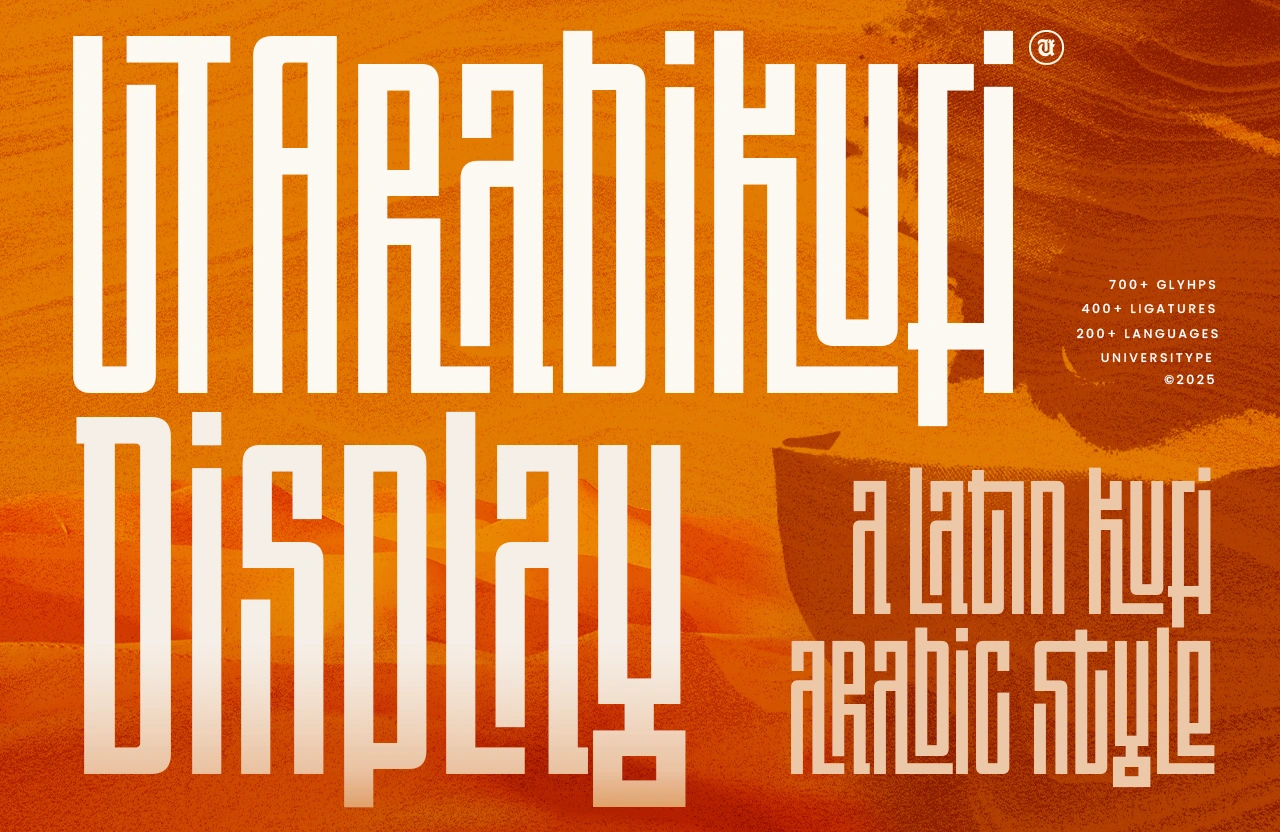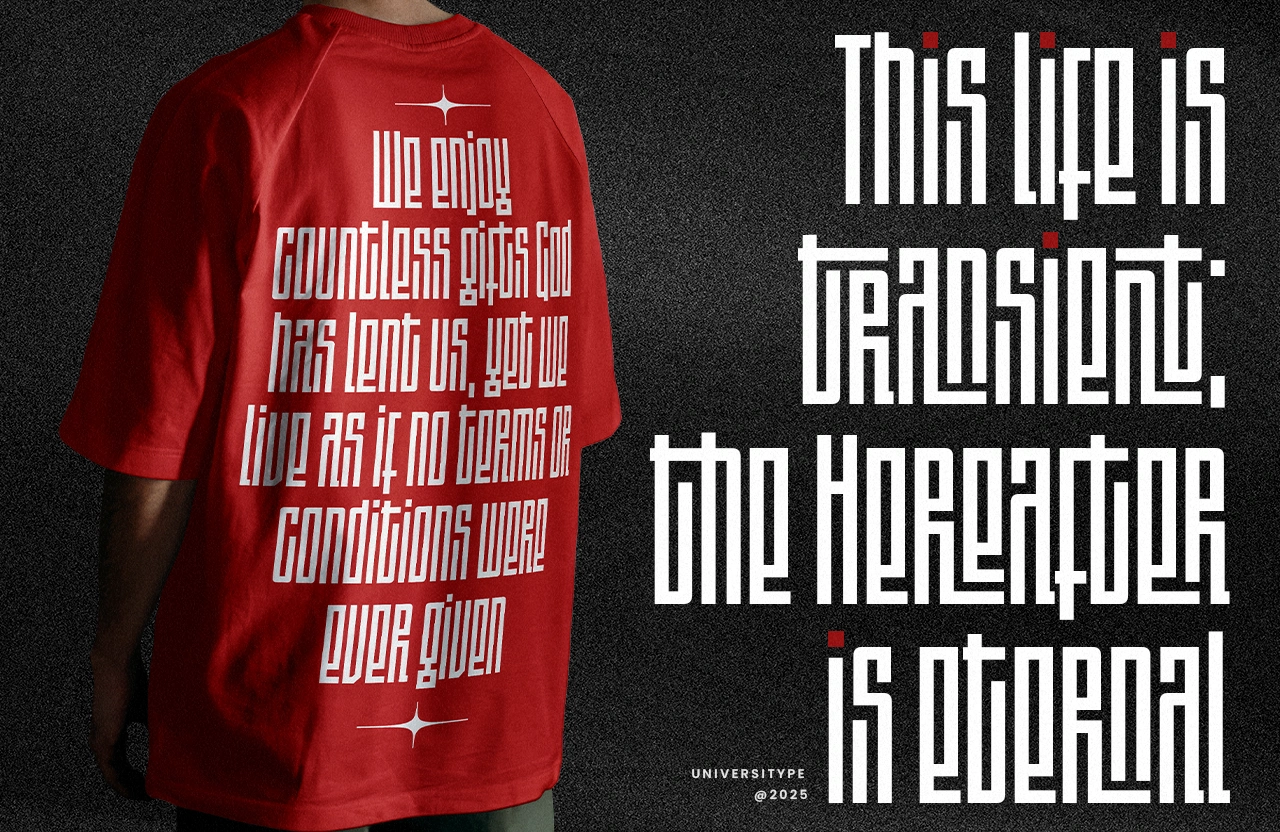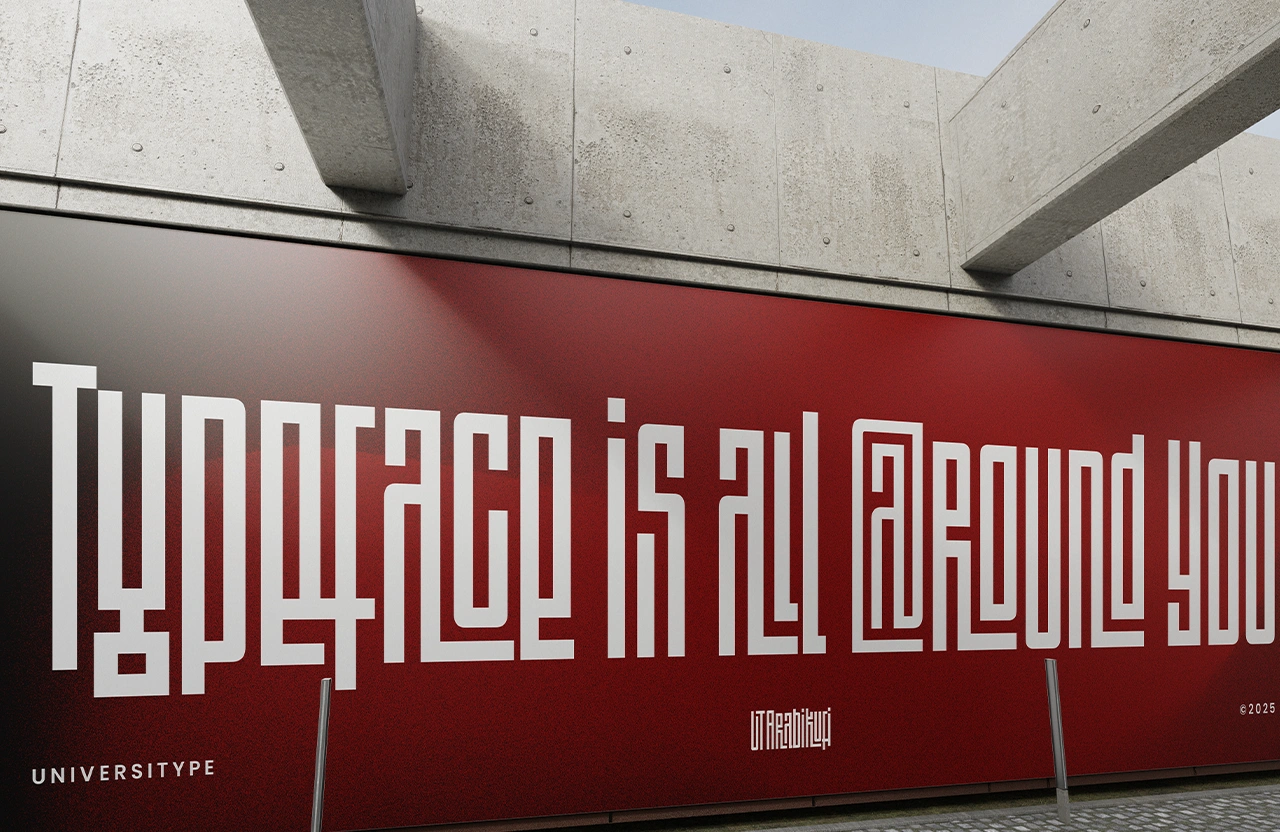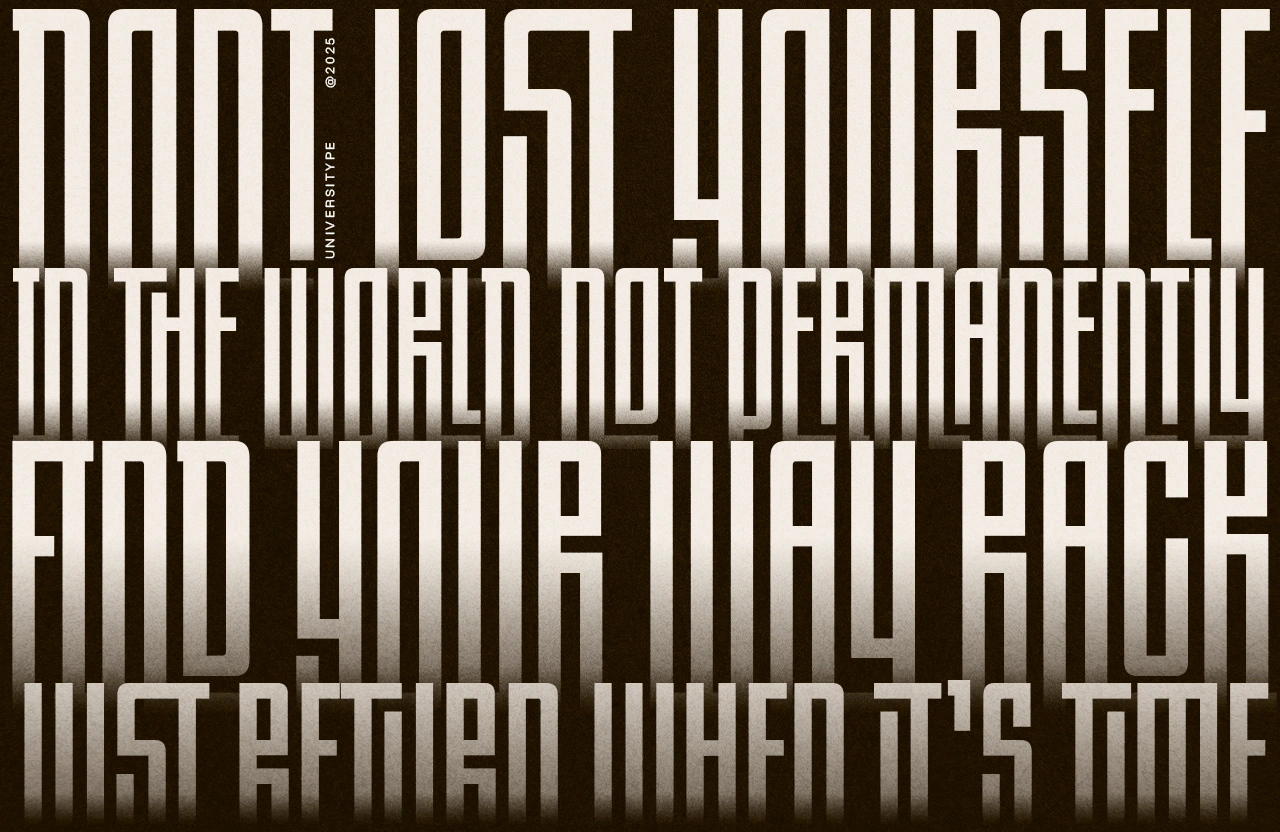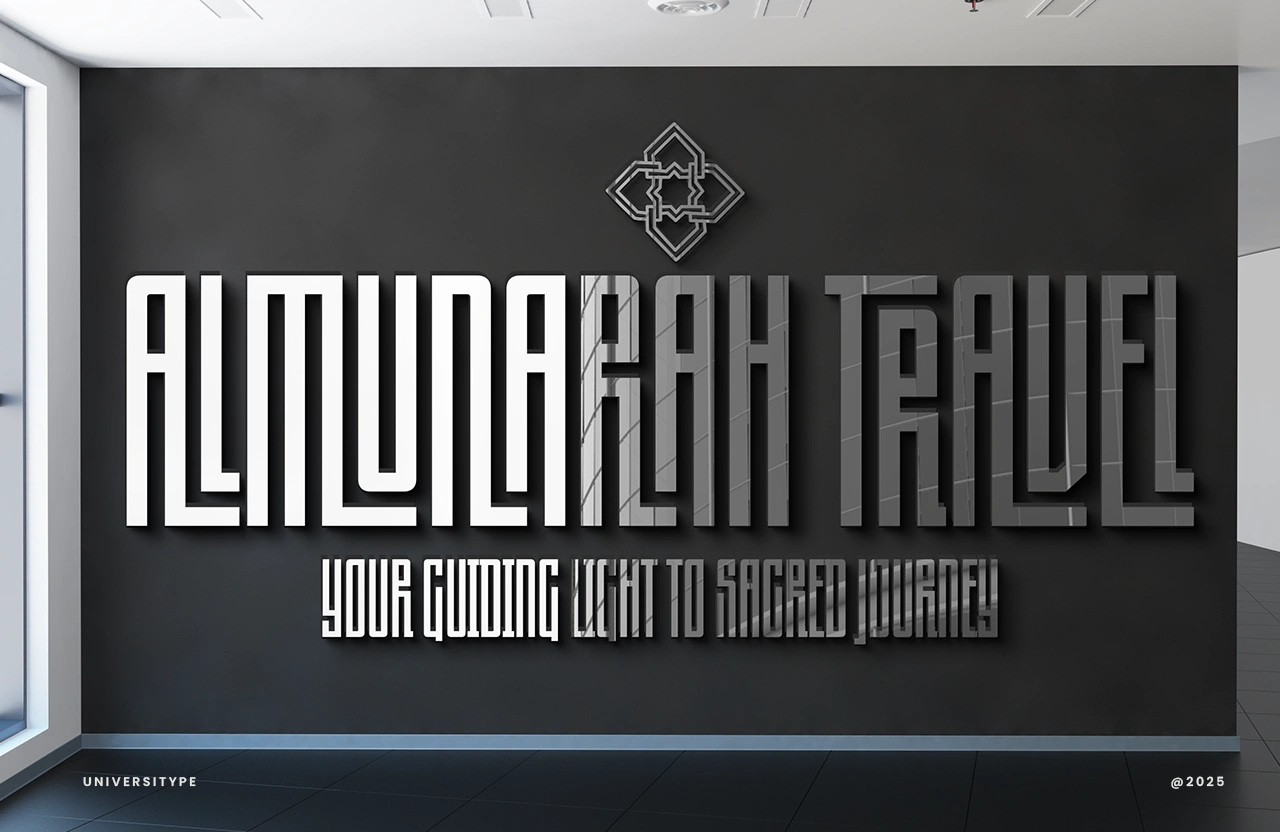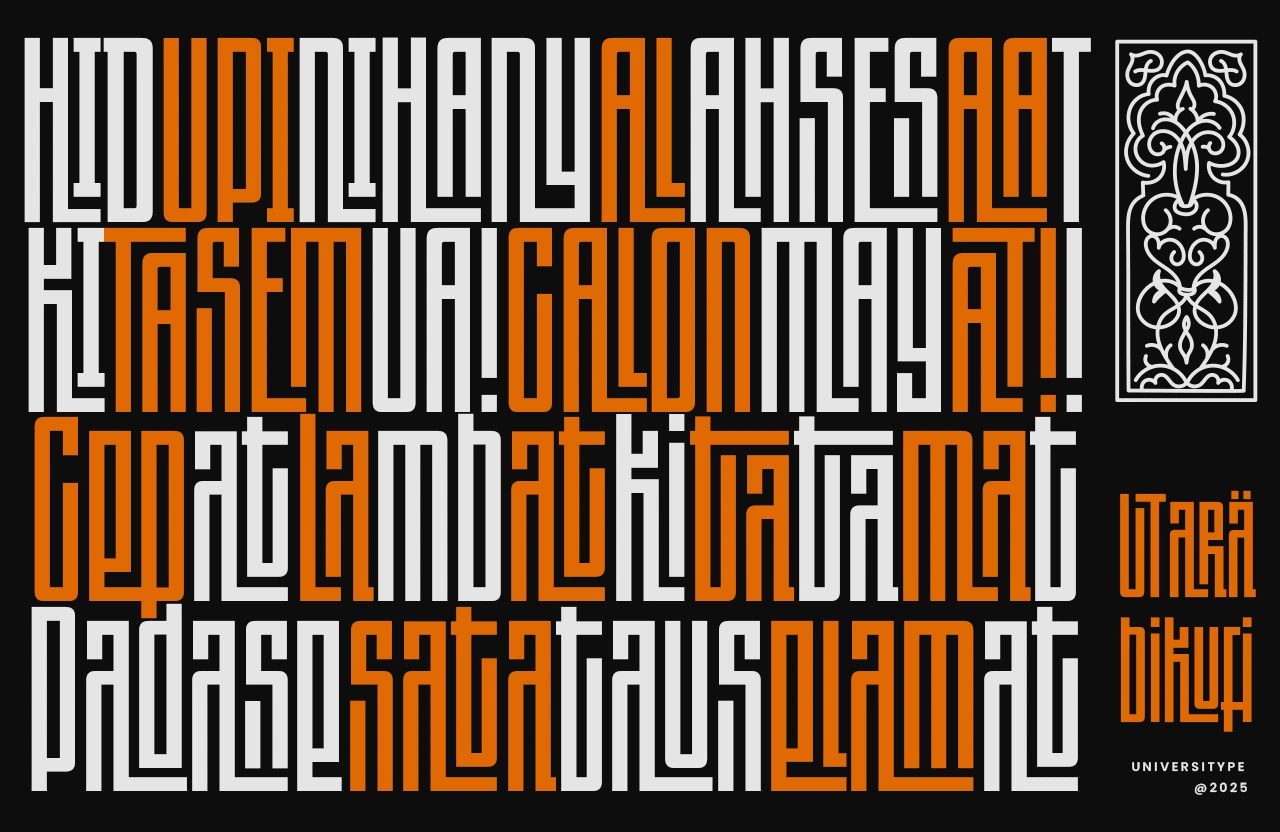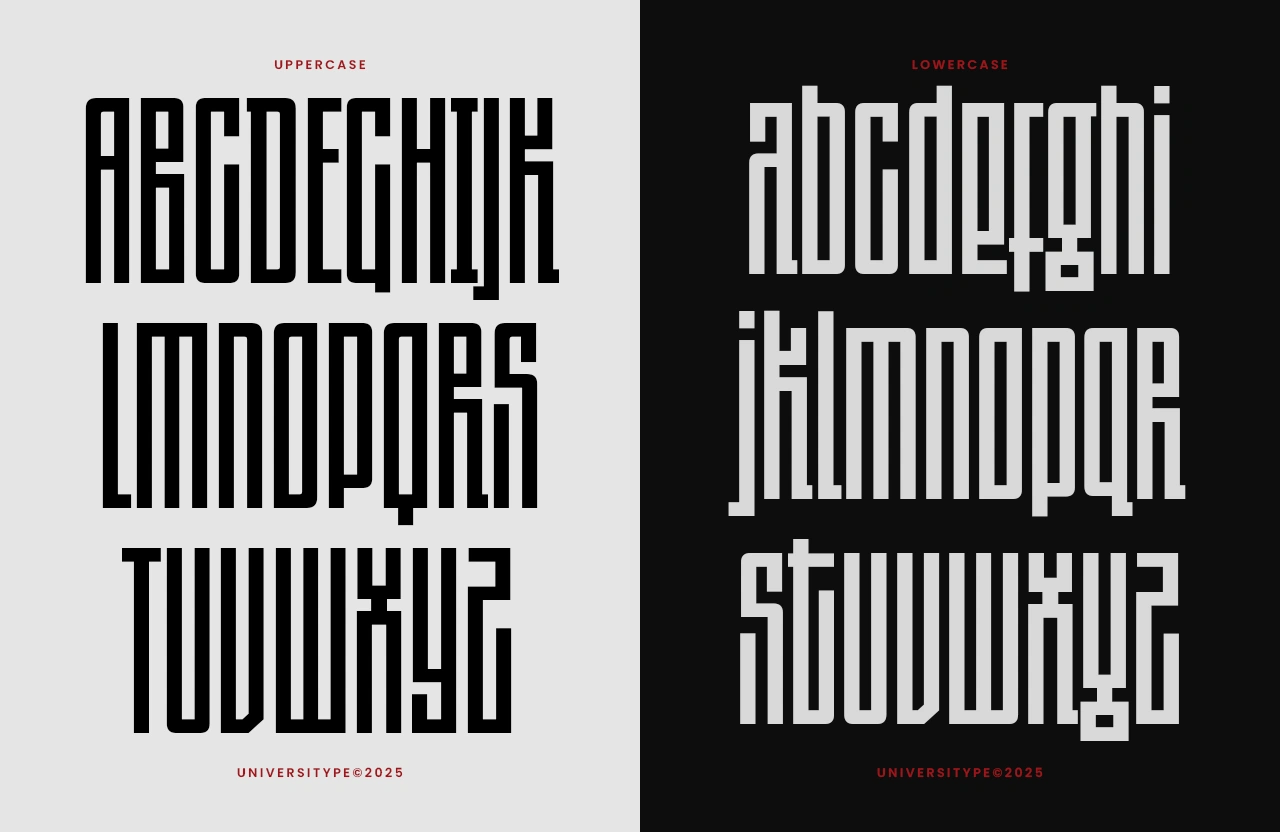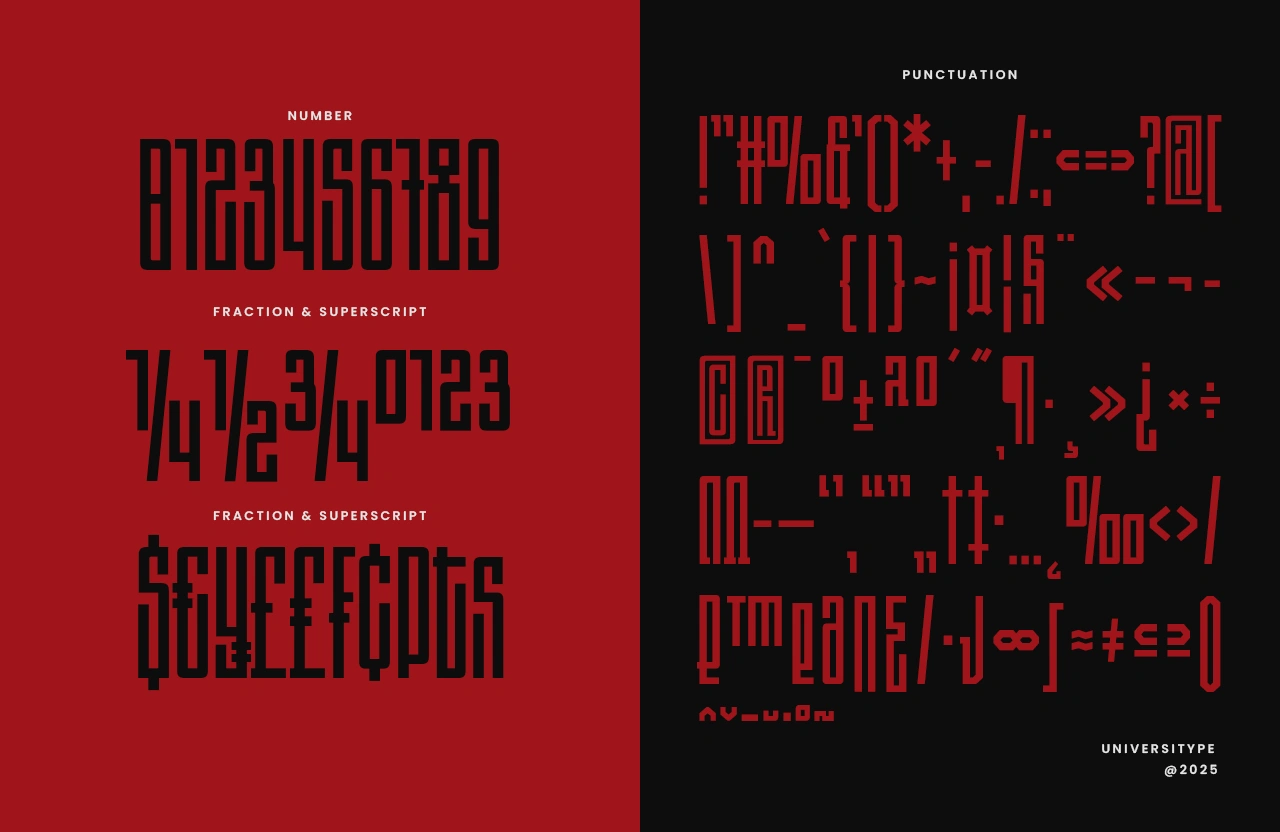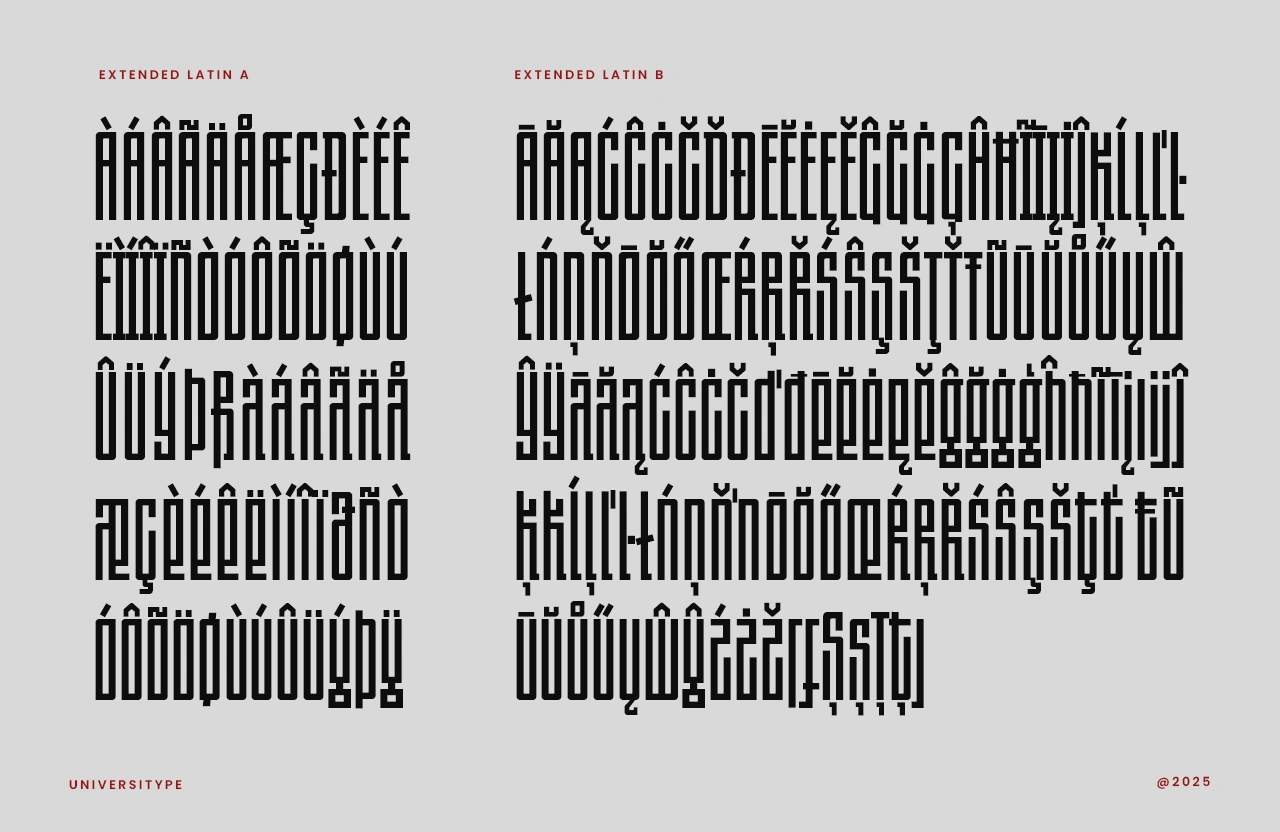
UT Arabikufi Display
Arabikufi Display brings the structural soul of Kufi calligraphy into the Latin world, creating a typeface with height, rhythm, and presence. Its long, architectural strokes and dense ligature system let you sculpt text like patterns
Arabikufi Display — Latin Letterforms Meet Kufi Precision
Arabikufi Display brings a bold, cultural pulse into modern typography. It blends the structural elegance of Kufi scripts with the clarity of Latin letterforms, creating a look that feels architectural, rhythmic, and unmistakably expressive. Every character stretches upward with intention, giving the font a tall, ornamental energy that instantly commands attention. It’s the kind of typeface that doesn’t just sit on a layout — it shapes it. Perfect for designers who want something with heritage influence, modern edge, and a whole lot of personality.
Target Audience
• Designers working on branding with cultural or Middle Eastern themes
• Creative studios specializing in art, architecture, fashion, or editorial work
• Brands seeking a strong signature look for packaging or campaigns
• Artists who love experimental, expressive type
• Display-heavy projects where the typography leads the visual story
Key Features
• 700+ glyphs for deep creative range
• 400+ stylistic alternates and ligatures for custom-looking typography
• Strong Latin–Kufi hybrid construction
• Monoline consistency with sharp geometric tension
• Eye-catching vertical proportions that feel ornamental and modern
• Clean rhythm between rigid structure and subtle human touches
Inspiration Behind the Design
Arabikufi Display grew out of a love for Kufi calligraphy — its geometry, its strong vertical flow, its architectural silhouette. The idea was to reinterpret that traditional beauty through a contemporary Latin framework. Think cultural heritage meeting digital design logic. Every stroke is shaped to echo the spirit of carved stone inscriptions, woven patterns, and timeless Islamic art, but with a modern rhythm built for today’s design world.
Usage Suggestions
This font thrives when you let it take center stage. Great for:
• Posters, album covers, and event titles
• Brand identities for cafés, fashion labels, studios, or artisan shops
• Editorial layouts that need a dramatic headline style
• Boutique packaging with cultural or ornamental themes
• Signage and installations with a modern-traditional fusion tone
• Exhibitions, museums, or heritage-inspired projects
Use it big, bold, and proud — that’s when it shines.
Features:
• Stylistic Alternates
• Standard Ligatures
• Discretionary Ligatures
• Multilingual Support
• Extensive punctuation and symbols
• Smooth kerning across tall vertical shapes.